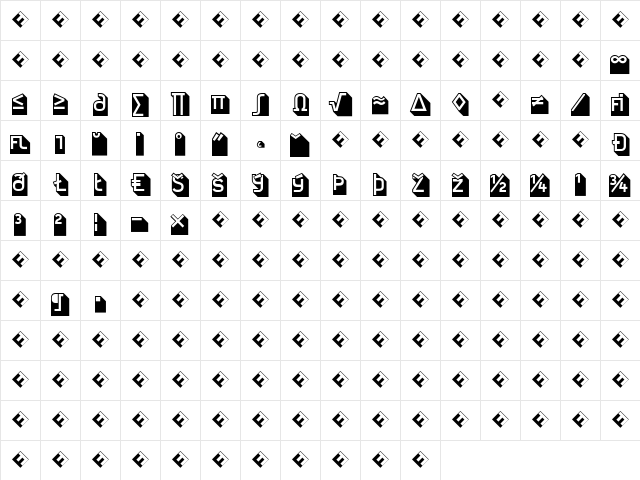
Jigger-AngledExp Regular
Foundry: Steffen Sauerteig, published by Fontshop International for the FontFont library
Design Context for Jigger-AngledExp
Jigger-AngledExp is a composed and adaptable typeface that performs quietly and consistently across a wide range of design contexts.
Who designed the Jigger-AngledExp Regular font?